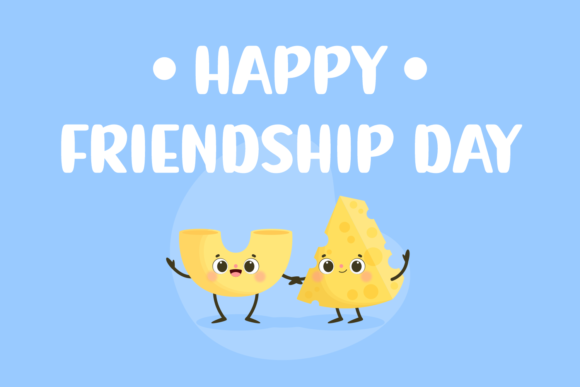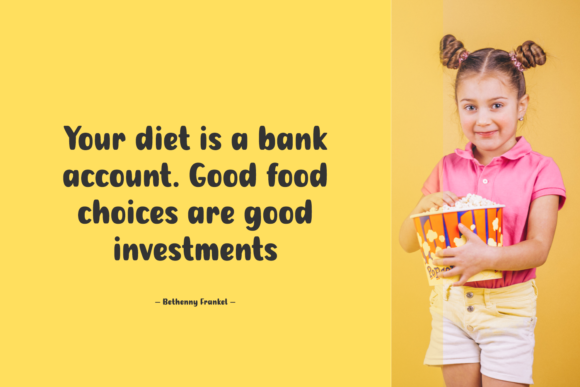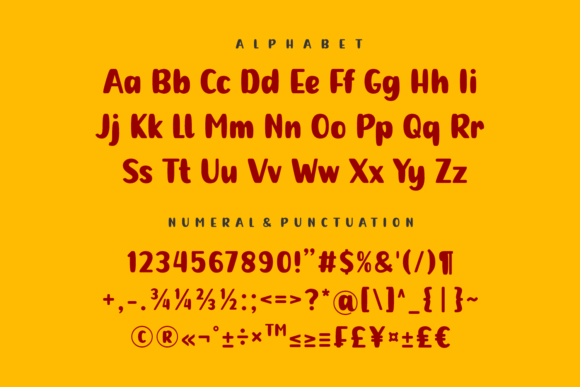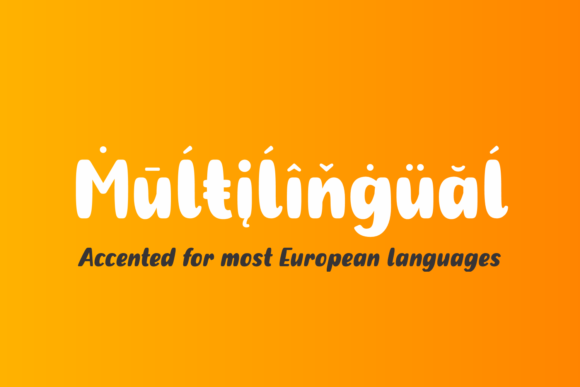
Introducing Cheese Chicken Font: The Whimsical and Trendy Display Font
Are you tired of using the same old fonts for your designs? Do you want to add a touch of whimsy and trendiness to your creations? Look no further than the Cheese Chicken Font! This friendly, sweet, and lovely font is sure to make each of your designs look outstanding.
What is Cheese Chicken Font?
Cheese Chicken Font is a display font that is perfect for designers and crafters who want to add a playful and modern touch to their work. This font is designed to be eye-catching and engaging, making it ideal for use in a variety of projects, from branding and advertising to packaging and social media graphics.
Key Features of Cheese Chicken Font
- Whimsical and Trendy: Cheese Chicken Font has a unique and playful design that is sure to make your designs stand out.
- Display Font: This font is specifically designed for use in display text, making it perfect for headlines, titles, and other prominent text elements.
- Friendliness and Sweetness: The font has a friendly and sweet feel to it, making it perfect for brands and designs that want to convey a sense of approachability and warmth.
- Lovely Aesthetic: The font has a lovely aesthetic that is sure to add a touch of elegance and sophistication to your designs.
Uses for Cheese Chicken Font
Cheese Chicken Font is a versatile font that can be used in a variety of projects, including:
- Branding and Advertising: Use Cheese Chicken Font to create eye-catching logos, ads, and marketing materials that will grab the attention of your target audience.
- Packaging Design: Add a touch of whimsy and fun to your packaging designs with Cheese Chicken Font.
- Social Media Graphics: Use Cheese Chicken Font to create engaging and shareable social media graphics that will help you stand out from the crowd.
- Invitations and Stationery: Add a touch of elegance and sophistication to your invitations and stationery with Cheese Chicken Font.
Benefits of Using Cheese Chicken Font
There are many benefits to using Cheese Chicken Font in your designs, including:
- Unique and Eye-Catching: Cheese Chicken Font is a unique and eye-catching font that will help your designs stand out from the crowd.
- Easy to Read: Despite its whimsical design, Cheese Chicken Font is easy to read and understand, making it perfect for use in a variety of projects.
- Versatile: Cheese Chicken Font can be used in a variety of projects, from branding and advertising to packaging and social media graphics.
- Time-Saving: With Cheese Chicken Font, you can create professional-looking designs in no time, saving you time and effort.
Tips and Tricks for Getting the Most Out of Cheese Chicken Font
Here are a few tips and tricks for getting the most out of Cheese Chicken Font:
- Pair with Other Fonts: Cheese Chicken Font pairs well with other fonts, so don’t be afraid to try pairing it with other fonts to create a unique and interesting look.
- Use in Combination with Images: Cheese Chicken Font looks great in combination with images, so try using it in combination with photos or illustrations to add an extra layer of interest to your design.
Cheese Chicken Font is a whimsical and trendy display font that is perfect for designers and crafters who want to add a touch of fun and modernity to their work. With its friendly, sweet, and lovely aesthetic, this font is sure to make each of your designs look outstanding. Whether you’re working on a branding project, packaging design, or social media graphics, Cheese Chicken Font is a great choice. So why wait? Download Cheese Chicken Font today and start creating!